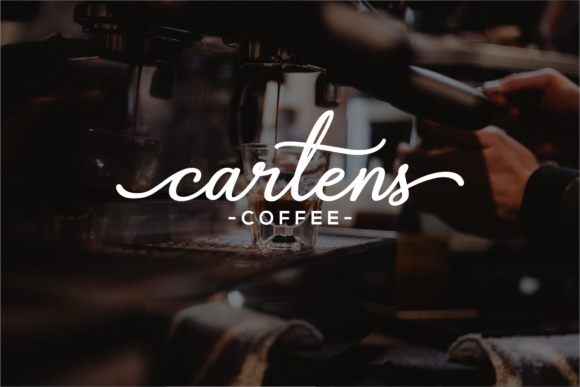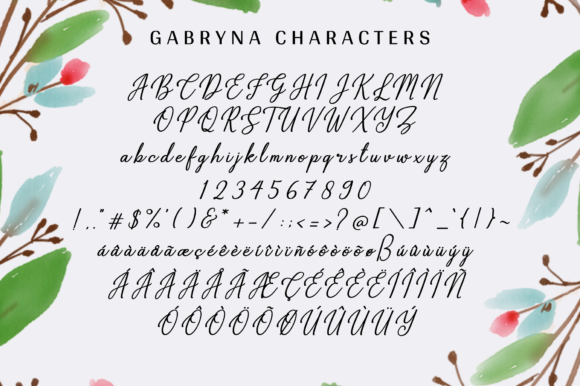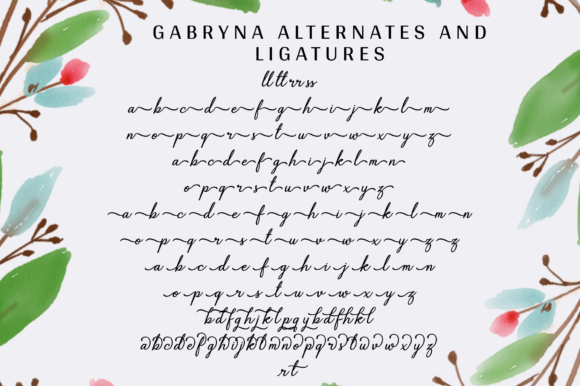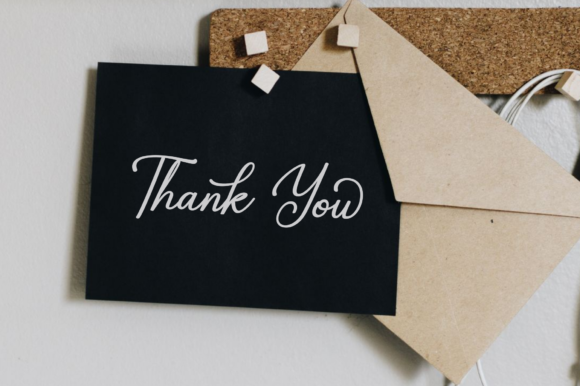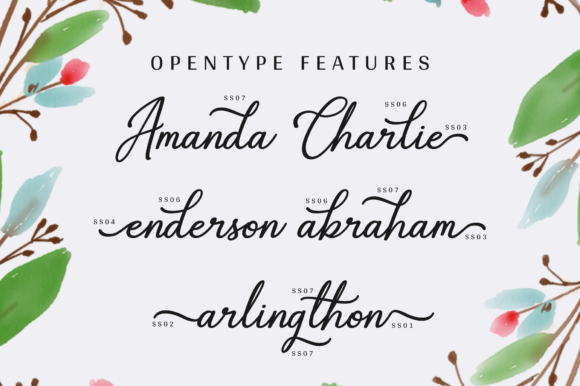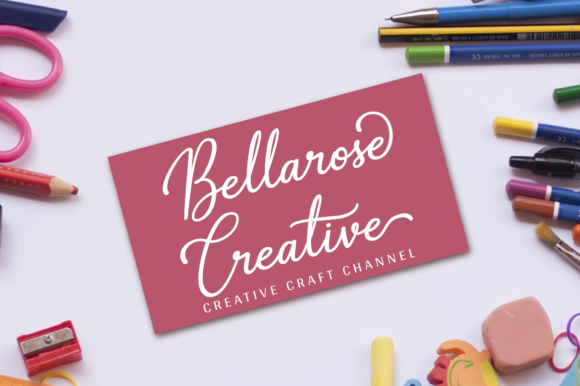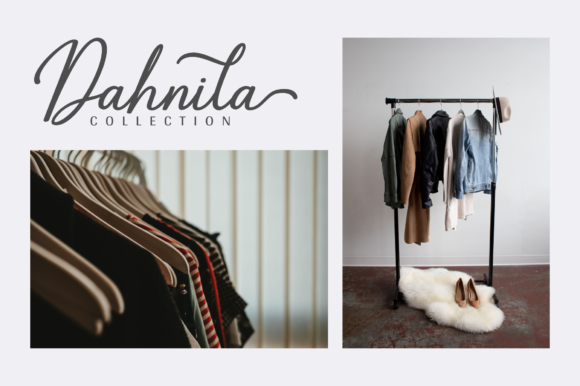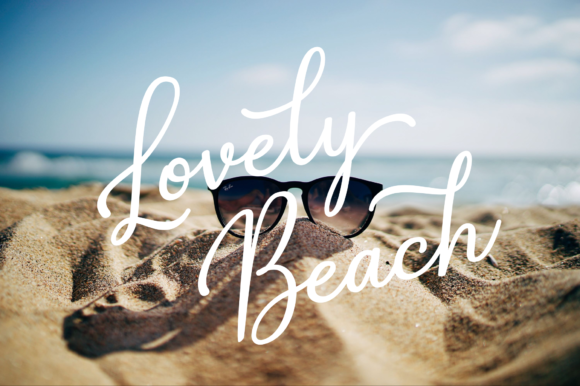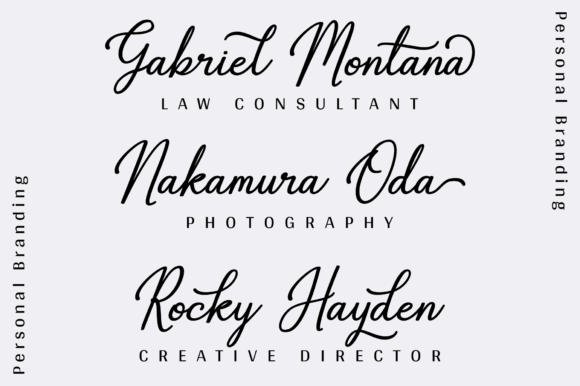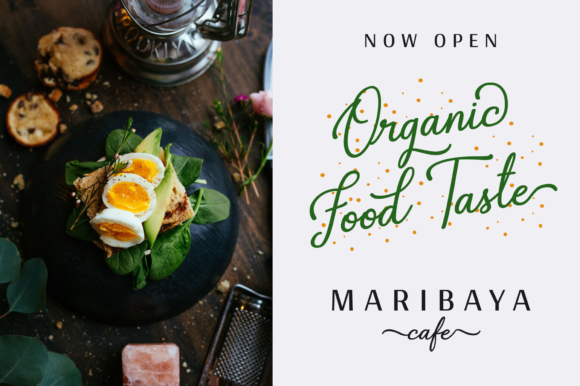
Gabryna Font
About Gabryna Font
Gabryna is a beautiful handwritten font with a stunning feel. Inspired by classic calligraphy, it will put a sophisticated spin on any design project!